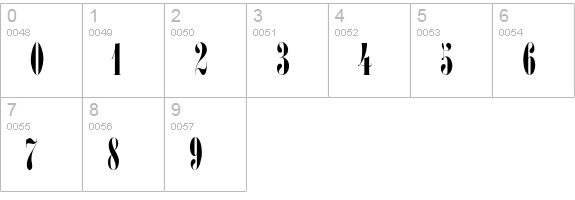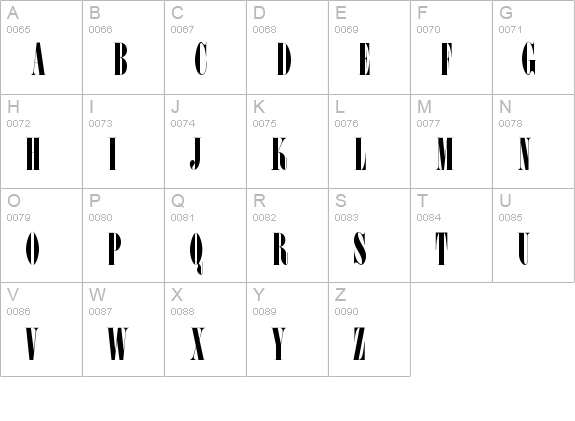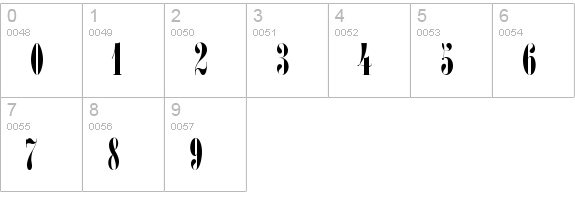
LSCCondensed Font Details
LSCCondensed font is a sleek and modern typeface that exudes sophistication and elegance. Its condensed design allows for efficient use of space while maintaining readability and style. The clean lines and sharp edges of LSCCondensed make it perfect for a wide range of design projects, from branding to editorial layouts. What's even better is that LSCCondensed is available for free download at FontsMarket.com. This means you can add this stylish font to your design arsenal without breaking the bank. Whether you're working on a professional project or a personal endeavor, LSCCondensed is sure to elevate your designs and make a lasting impression. Download it now and see the difference it can make in your next project!